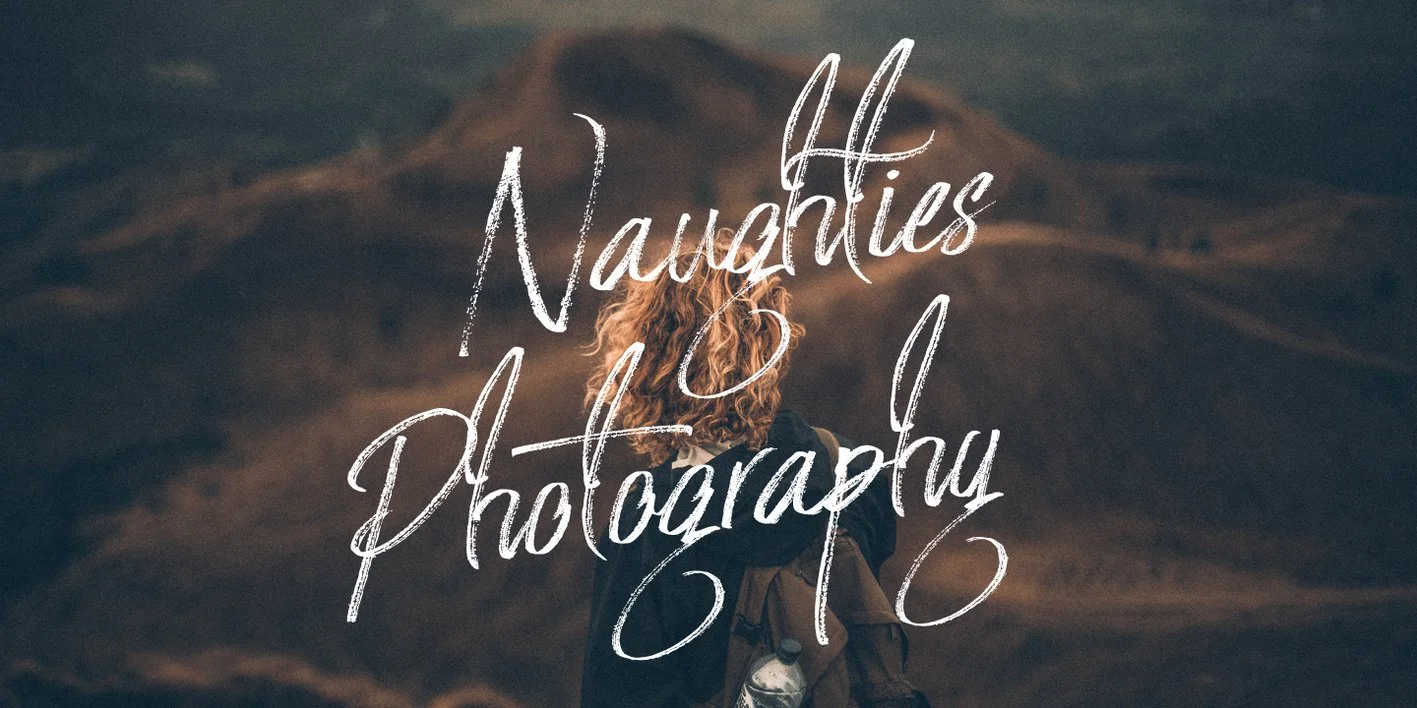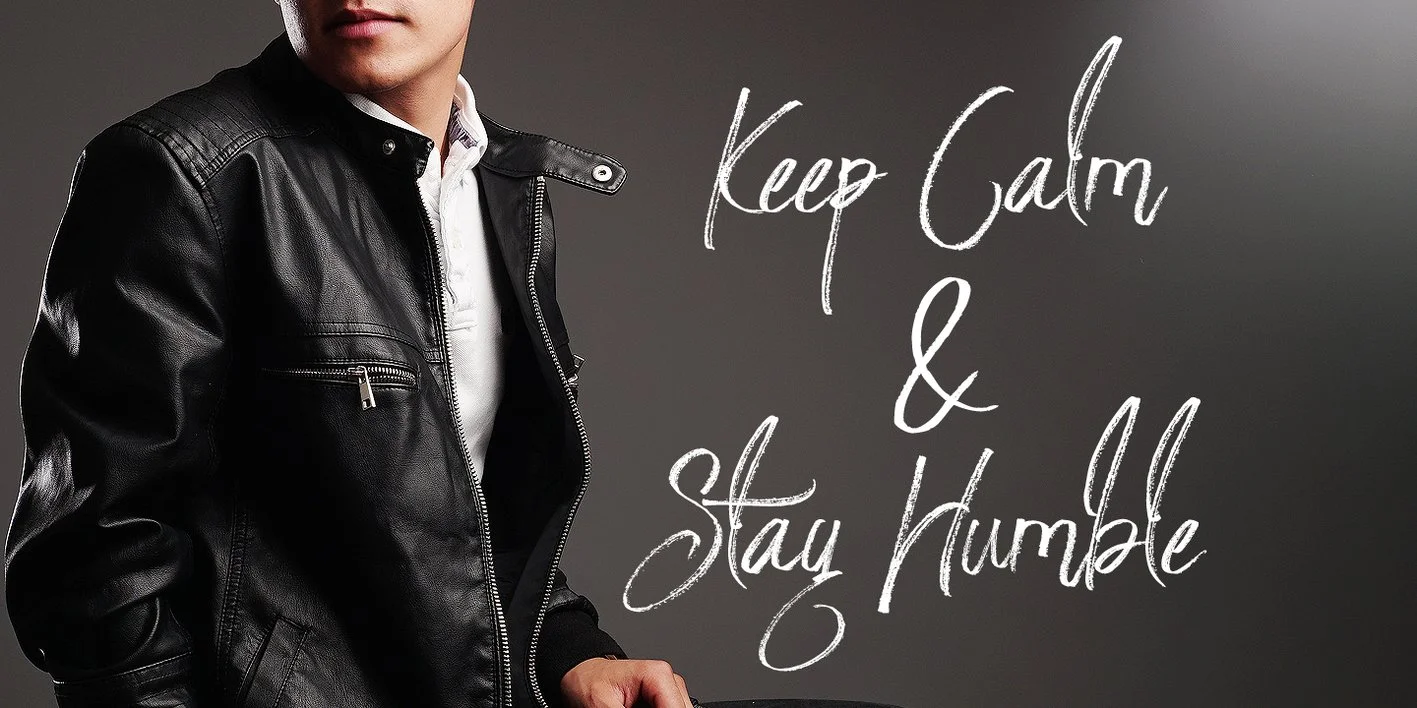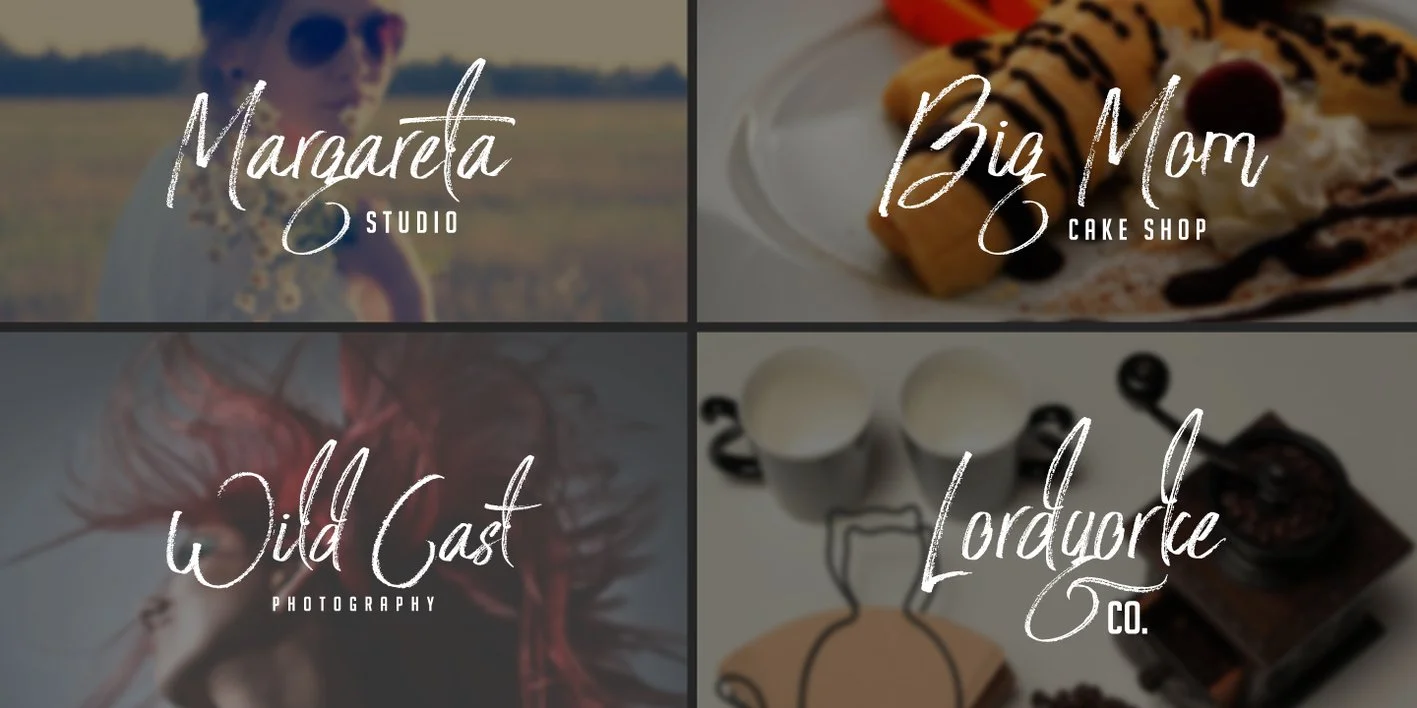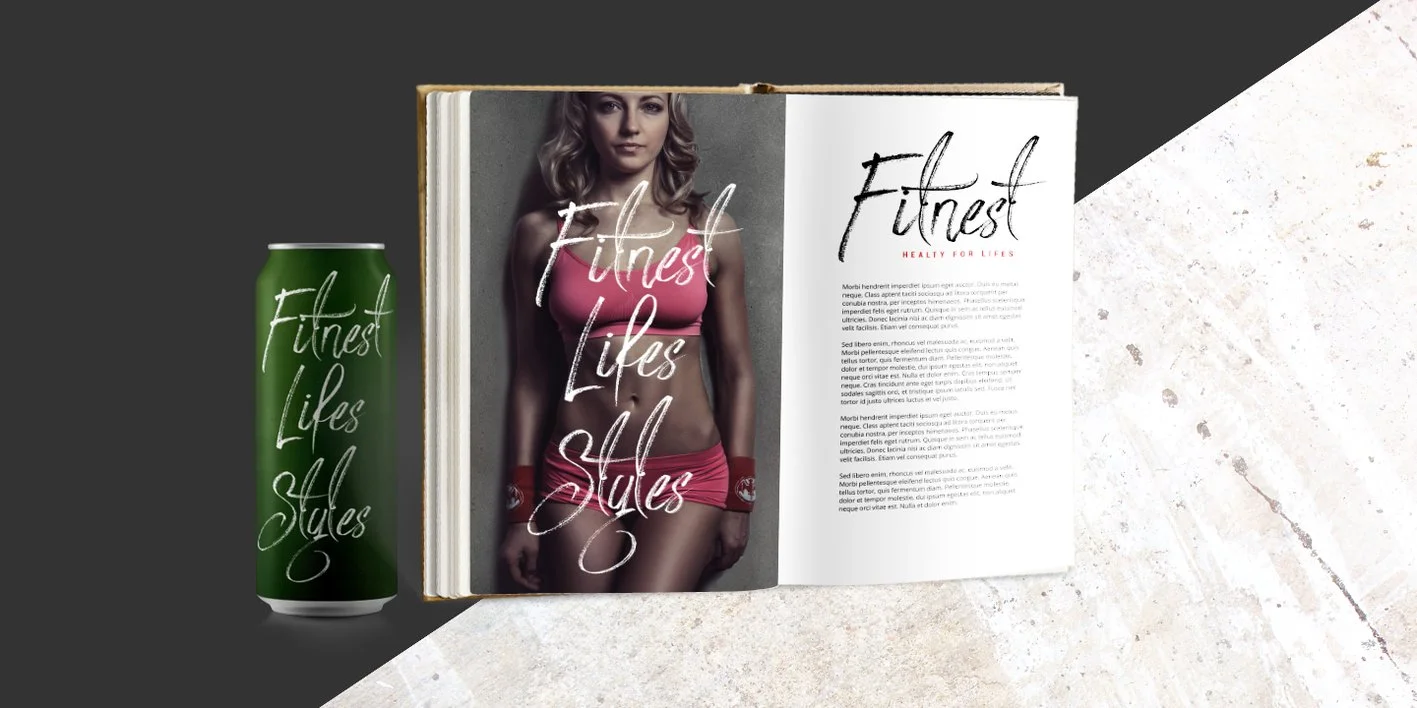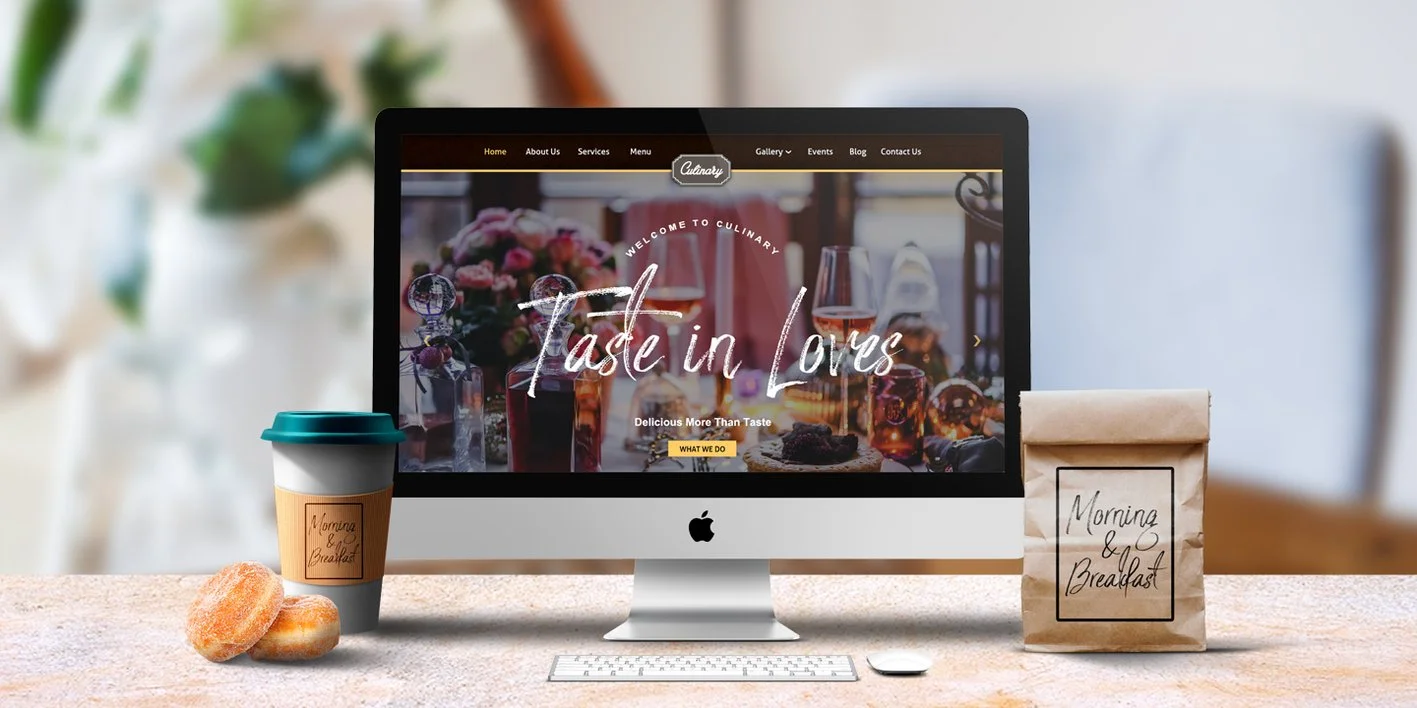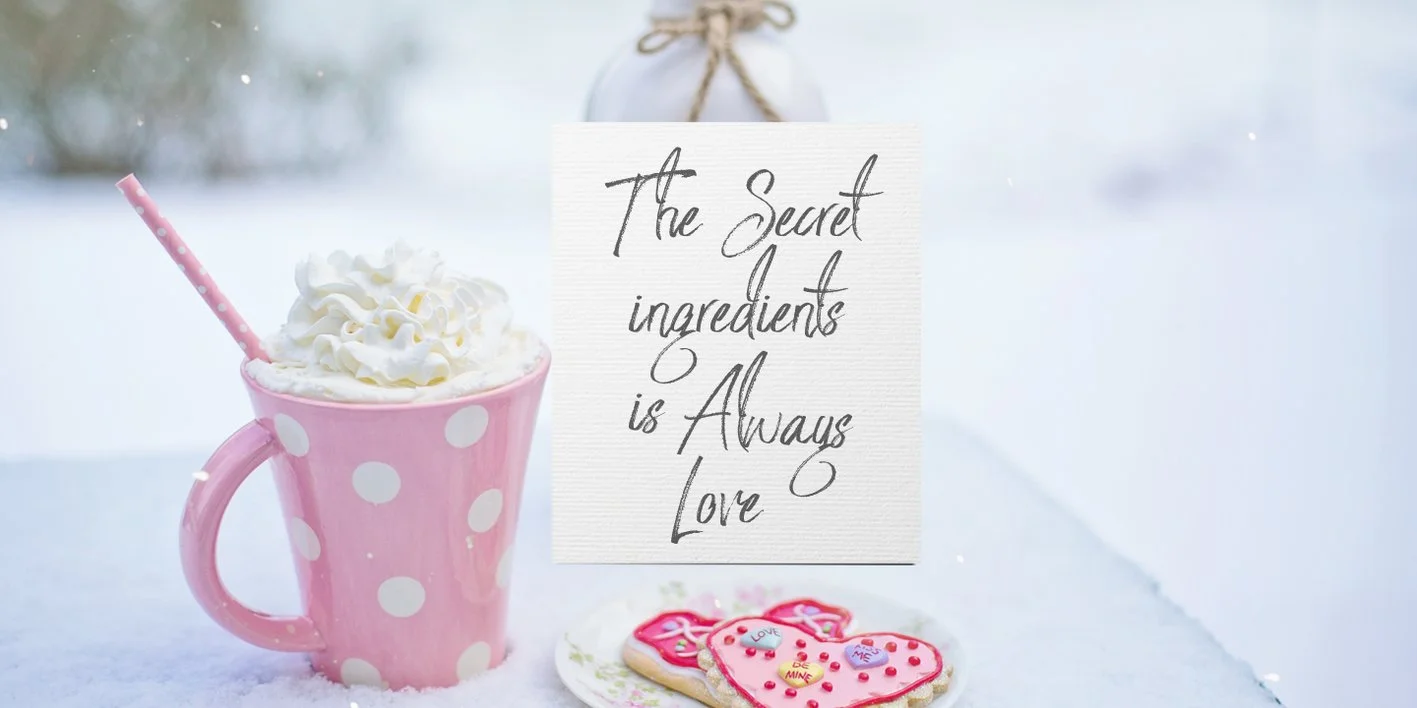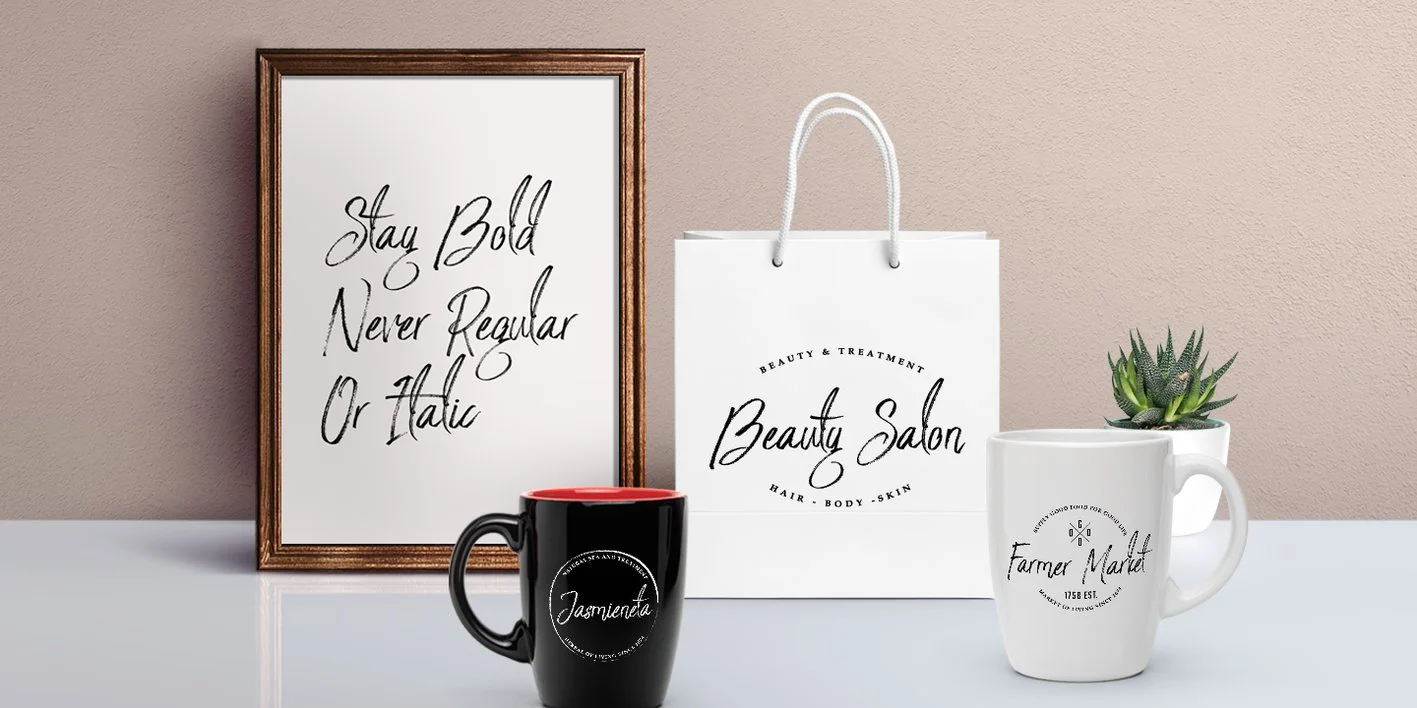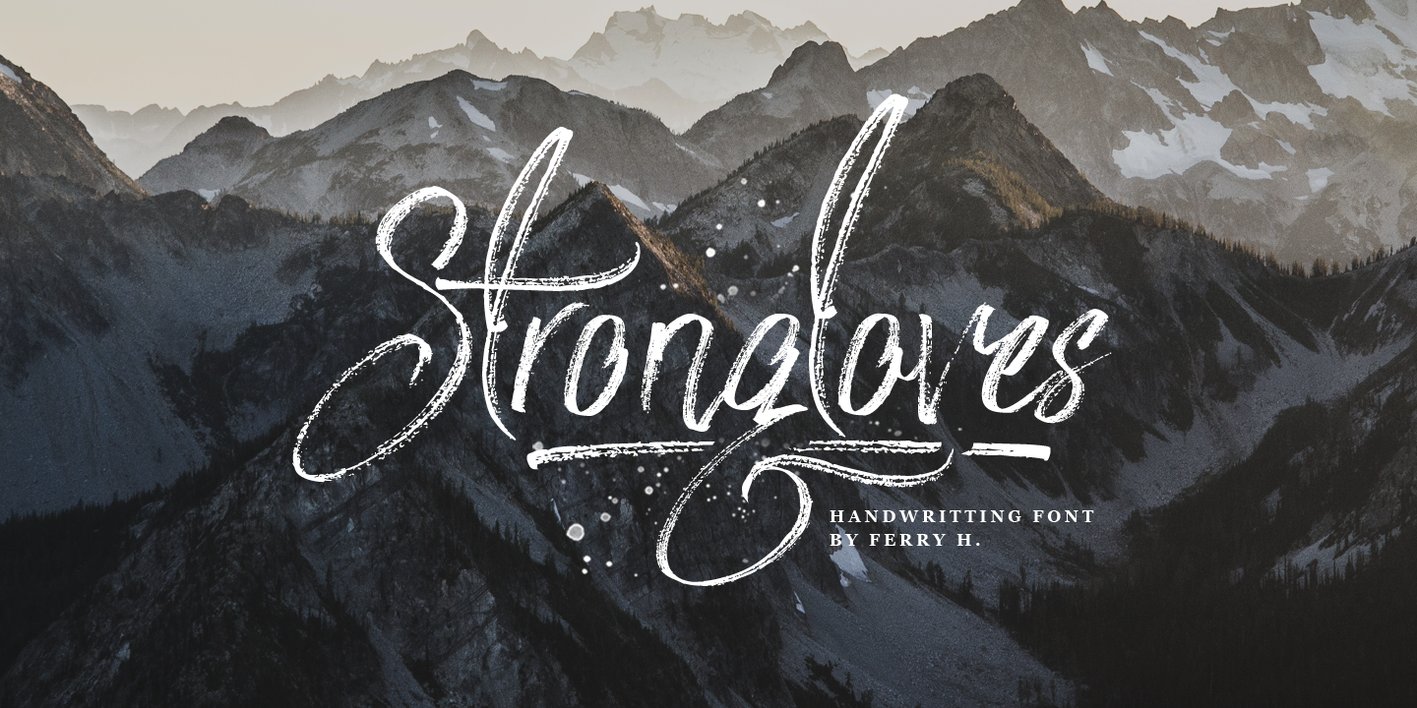
Strongloves Font
Typography shapes perception at a subconscious level. Strongloves leverages versatility across print and screen contexts to make every composition feel considered. The typeface brings a versatile sensibility to a broad range of creative disciplines, with consistent type colour across continuous text that holds up whether the work is print-first or screen-first.
In practice, Strongloves proves particularly effective for packaging design, social media graphics, signage systems, annual reports, logo design. Designers reaching for it find that the type decisions feel resolved rather than laboured — a useful quality when client timelines are tight.
Spacing and kerning pairs have been individually reviewed for the most common letter combinations in English and major European languages. The result is even type colour across continuous text, with no awkward gaps or collisions between adjacent characters.
The range of applications extends to poster creation, environmental graphics, brand identity systems, editorial layouts. That breadth is deliberate: the proportions and spacing were stress-tested across a wide range of mock briefs before the typeface was finalised.
Pairing Strongloves with a contrasting serif or a neutral grotesque gives mixed-format layouts a clear visual grammar without requiring constant size adjustments to establish hierarchy.
Art directors commissioning type-led campaigns find Strongloves a reliable choice for projects that demand both personality and restraint. The design avoids the self-conscious quirkiness that dates quickly, settling instead for considered distinctiveness that holds up over time.